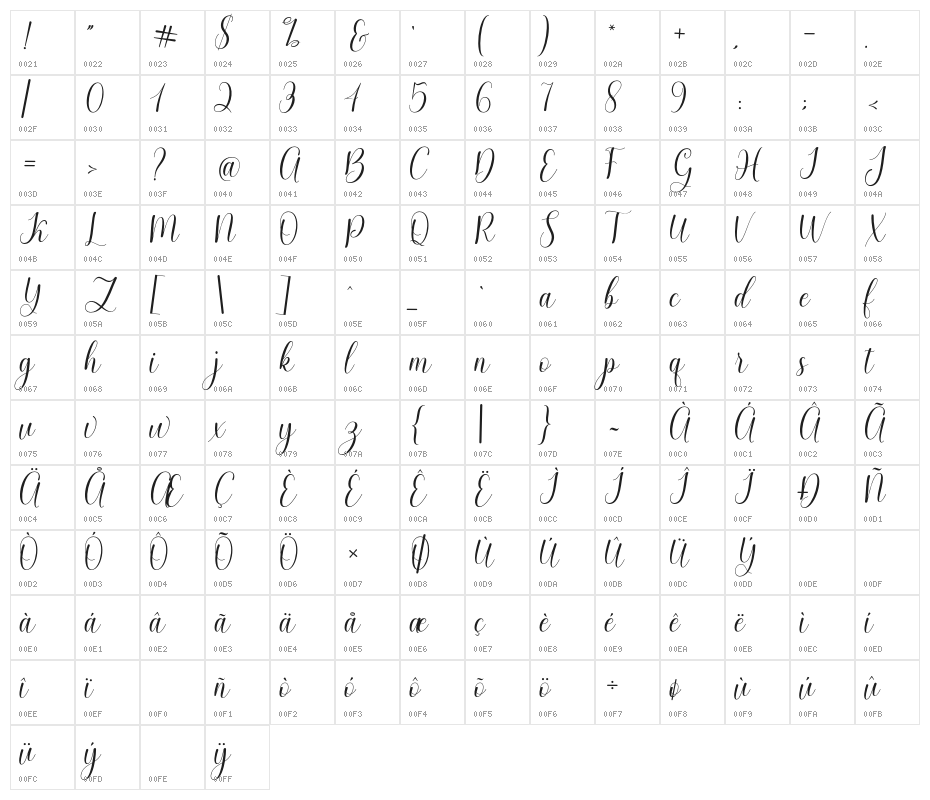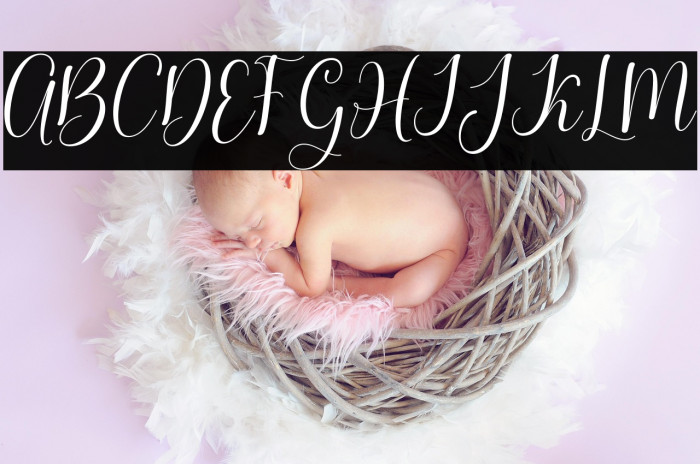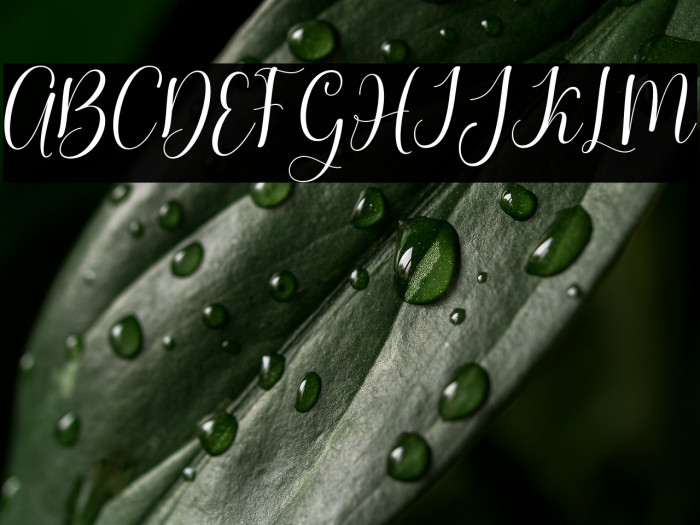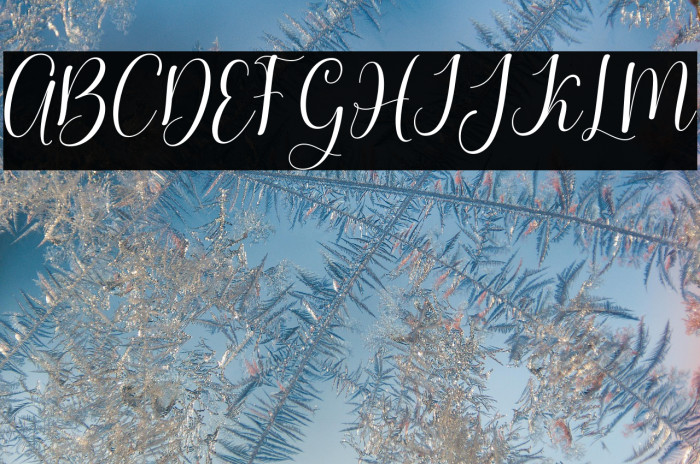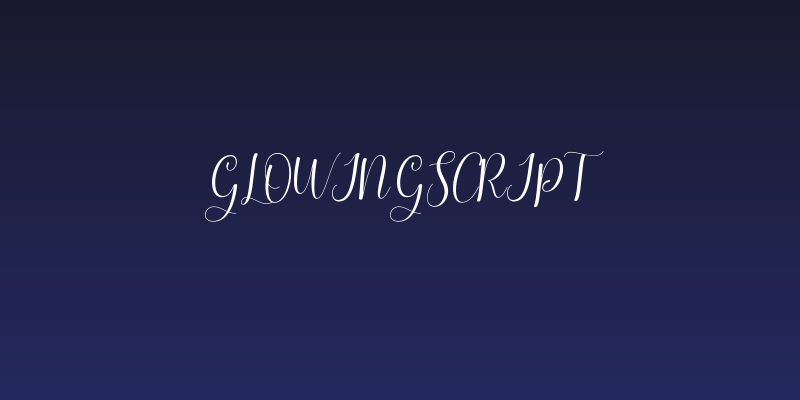
glowingscript Font
glowingscript Description
This elegant script font features flowing, interconnected letters with a graceful and sophisticated appearance. The uppercase letters are ornate, with sweeping curves and flourishes that add a touch of luxury. The lowercase letters maintain a consistent style, offering a smooth transition between characters. Numbers and special characters are designed with the same attention to detail, ensuring a cohesive look across all text. The font's delicate strokes and high contrast between thick and thin lines give it a refined and polished feel, making it ideal for formal and decorative applications.
| Overall Style | Elegant, Decorative |
| Use Case | Logos, Invitations, Decorative text |
| Proposed Projects | Ideal for wedding invitations, elegant branding, luxury product packaging, and decorative signage. |